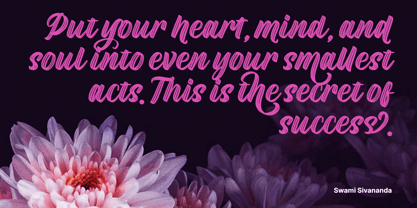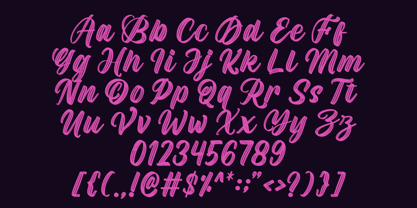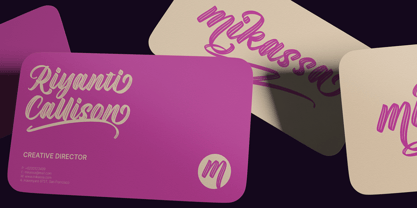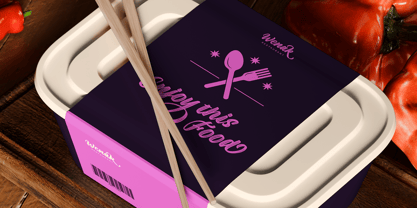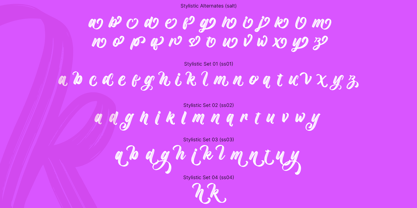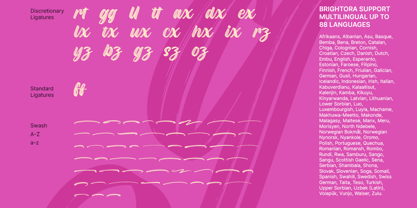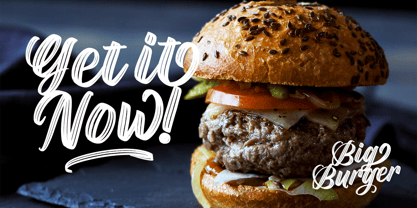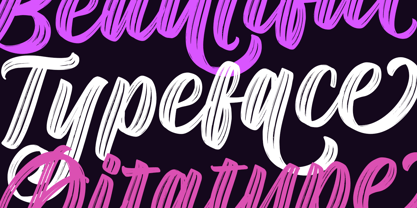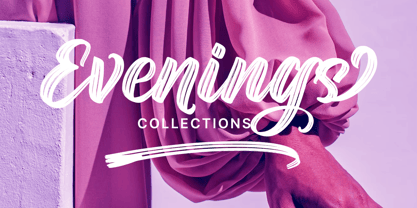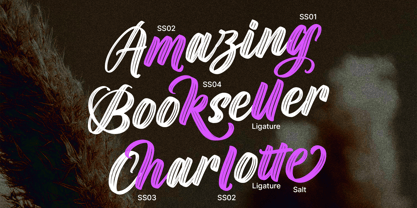
Brightora
by Nathatype
Brightora is a bold vintage-style calligraphy brush font that captures the charm of handcrafted lettering. Its sweeping strokes and textured details evoke the authentic feel of traditional brush calligraphy, while the bold weight adds strength and character. Brightoria blends timeless elegance with artistic energy, making every word stand out with a touch of vintage sophistication. In addition, enjoy the features here. Features: Ligatures Stylistic Sets Swashes Multilingual Supports PUA Encoded Numerals and Punctuations Brightora fits in name cards, branding, packaging, posters, headlines, editorial designs, and many more designs. Find out more ways to use this font by taking a look at the font preview. Thanks for purchasing our fonts. Hopefully, you have a great time using our font. Feel free to contact us anytime for further information or when you have trouble with the font. Thanks a lot and happy designing.